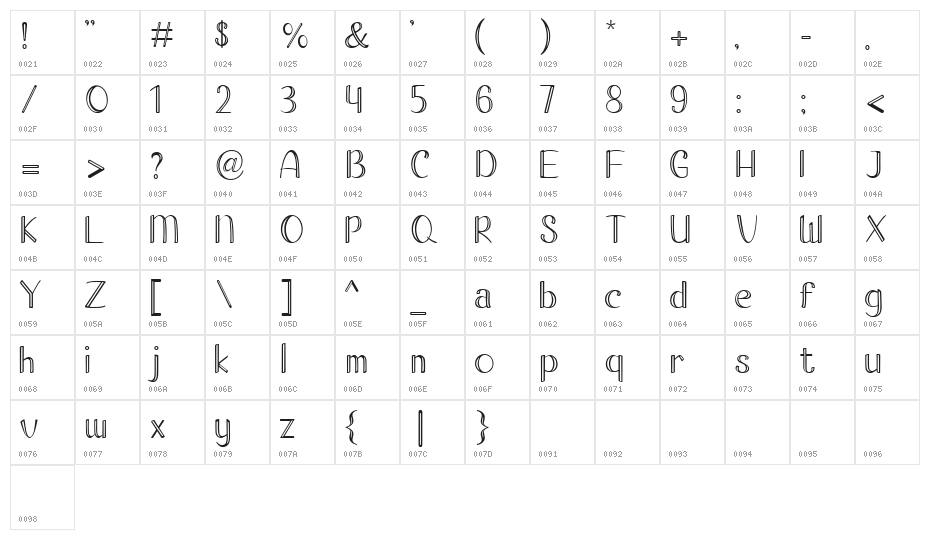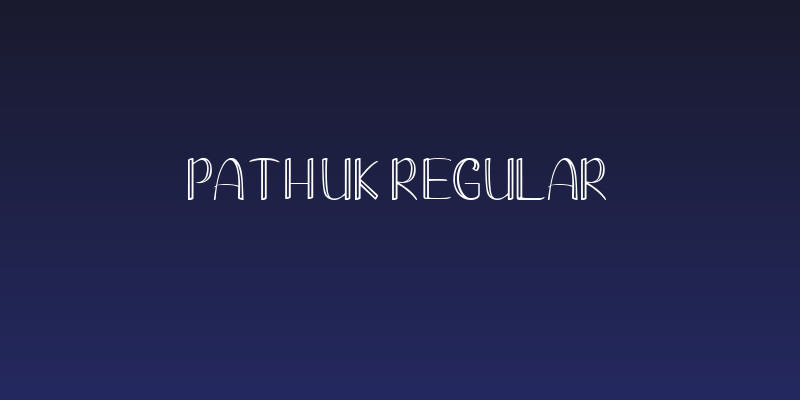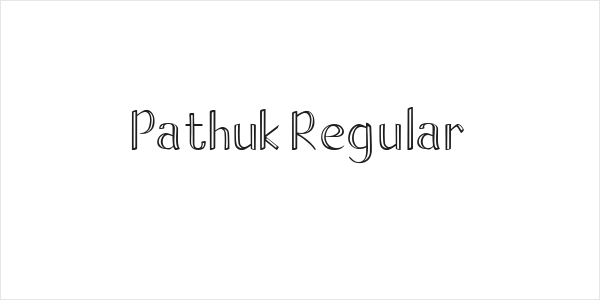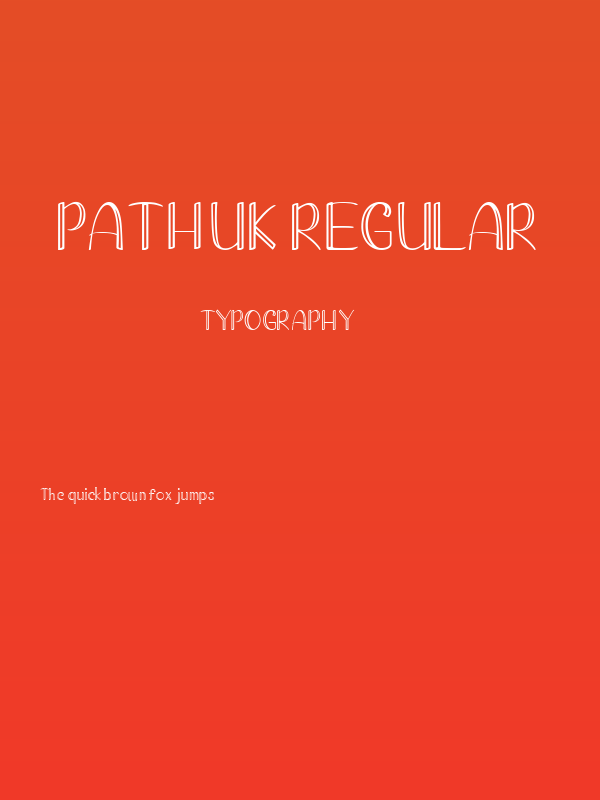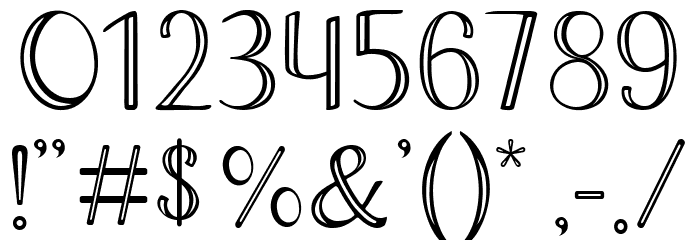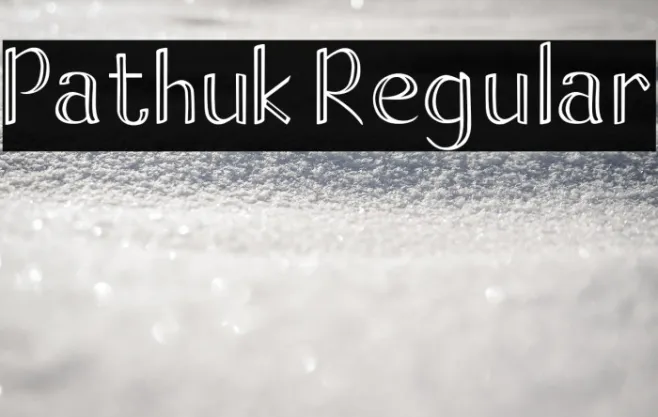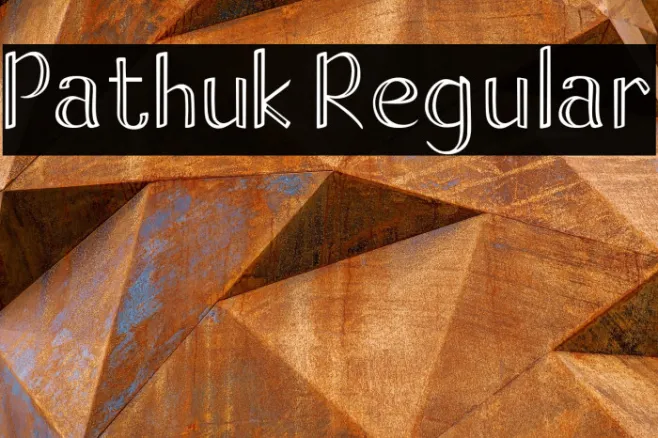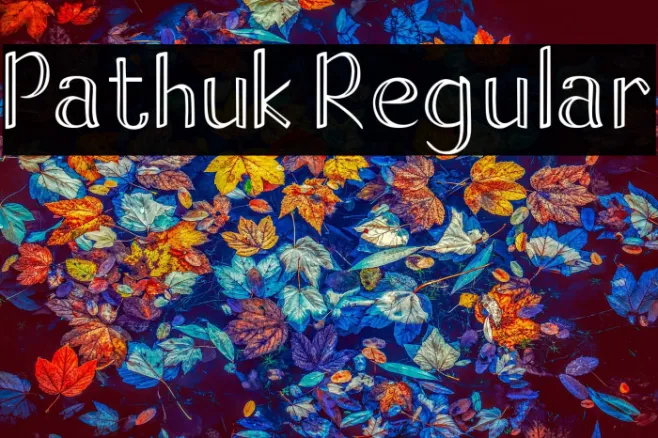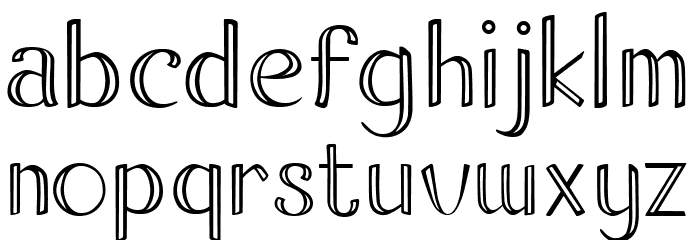
Pathuk Regular Font
Pathuk Regular Description
This font features a unique and playful design with a hand-drawn aesthetic. The characters are outlined, giving them a hollow appearance that adds a whimsical touch. The uppercase and lowercase letters maintain a consistent style, with rounded edges and a slightly condensed form. The numerals and special characters follow the same playful theme, making them suitable for creative projects. The overall look is decorative and eye-catching, perfect for adding a fun element to any design.